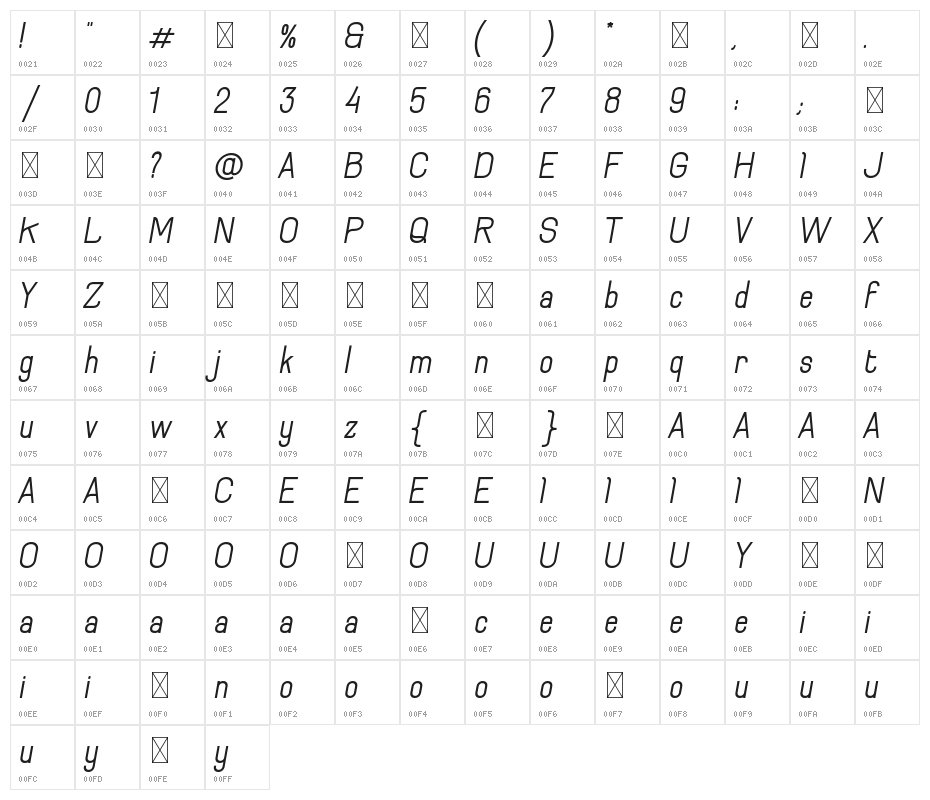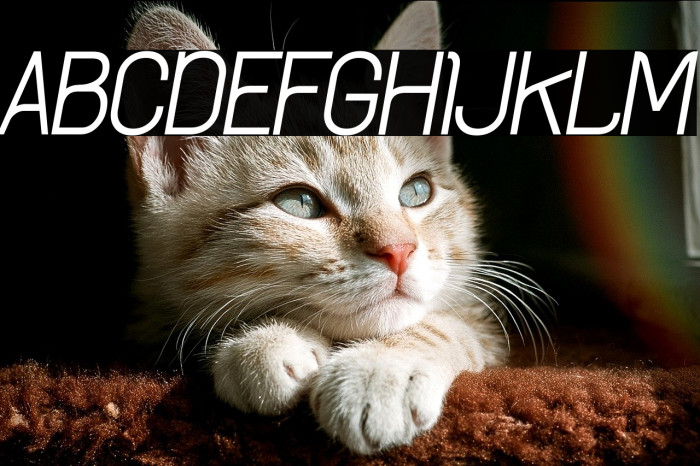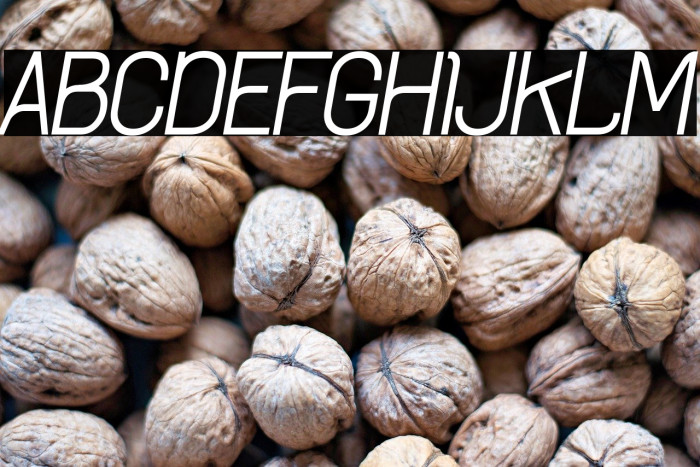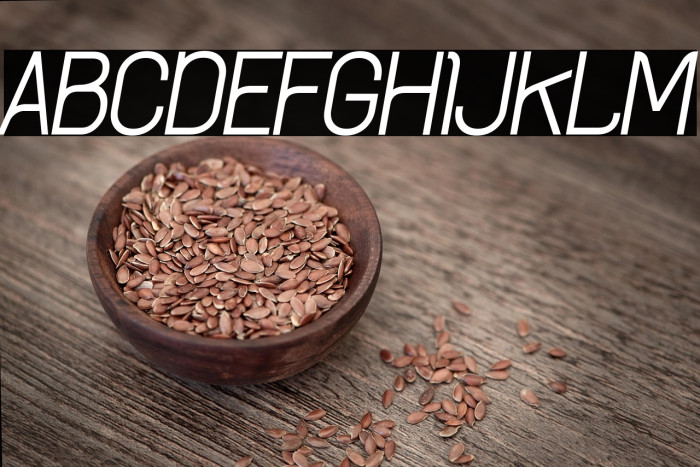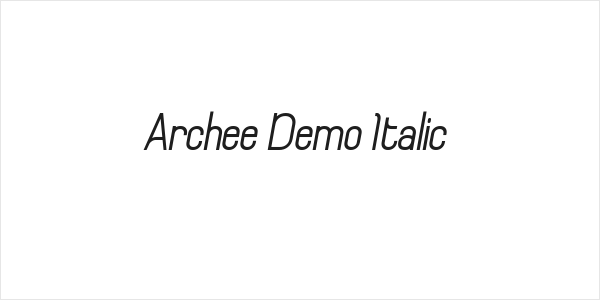
Archee Demo Italic Font
Archee Demo Italic Description
This font features a sleek, italicized style with a modern and streamlined appearance. The characters are slightly elongated, giving them a dynamic and forward-leaning posture. The strokes are consistent in width, contributing to a clean and uniform look. The uppercase letters are bold and assertive, while the lowercase letters maintain a harmonious balance with a slightly more delicate touch. The numerals are clear and legible, matching the overall aesthetic. Special characters are well-integrated, maintaining the font's cohesive style. This font is ideal for projects that require a contemporary and professional look.